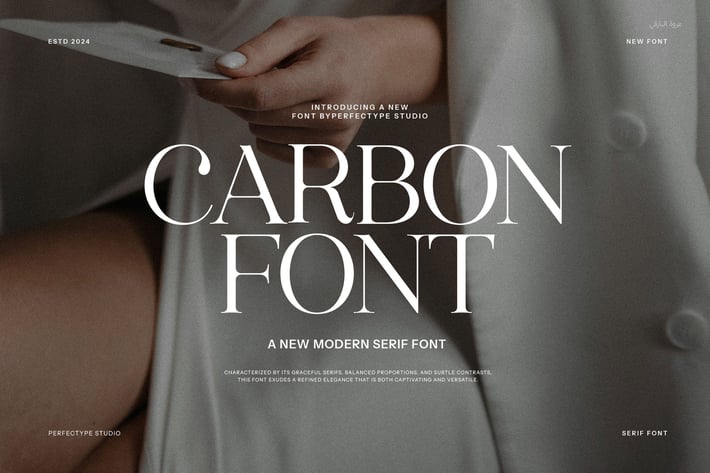
Carbon Elegant Serif Font
Carbon is a refined serif font designed to bring timeless elegance to any project. Its well-crafted letterforms combine classic serif features with a modern touch, making it perfect for a wide range of design needs. Whether you are creating a brand identity, editorial layout, or sophisticated print materials, Carbon offers clarity and style.
First, Carbon features strong serifs with clean, sharp edges that add character without sacrificing readability. This makes the font both decorative and functional. In addition, its smooth curves and balanced proportions provide a harmonious feel, which helps maintain visual interest while keeping text easy to follow.
Moreover, Carbon’s design is versatile. It works well in large headings, thanks to its bold presence, and also performs effectively in body text due to its clear, open shapes. Because of this, Carbon suits magazines, websites, logos, invitations, and packaging alike.
Key benefits of Carbon include:
- Classic serif design with a modern twist
- Clear and legible letterforms
- Strong serifs that enhance style
- Balanced and harmonious proportions
- Works well in both large and small sizes
- Ideal for branding and editorial projects
- Adds sophistication to print and digital design
- Versatile across many creative uses
Additionally, Carbon pairs easily with other fonts, especially simple sans-serif styles, creating contrast and enhancing visual appeal. This makes it a smart choice for designers who want a polished and professional look.
In summary, Carbon Elegant Serif is a stylish, readable font that fits many design projects. It offers both tradition and modernity in one package, ensuring your work stands out with grace and clarity.
First, Carbon features strong serifs with clean, sharp edges that add character without sacrificing readability. This makes the font both decorative and functional. In addition, its smooth curves and balanced proportions provide a harmonious feel, which helps maintain visual interest while keeping text easy to follow.
Moreover, Carbon’s design is versatile. It works well in large headings, thanks to its bold presence, and also performs effectively in body text due to its clear, open shapes. Because of this, Carbon suits magazines, websites, logos, invitations, and packaging alike.
Key benefits of Carbon include:
- Classic serif design with a modern twist
- Clear and legible letterforms
- Strong serifs that enhance style
- Balanced and harmonious proportions
- Works well in both large and small sizes
- Ideal for branding and editorial projects
- Adds sophistication to print and digital design
- Versatile across many creative uses
Additionally, Carbon pairs easily with other fonts, especially simple sans-serif styles, creating contrast and enhancing visual appeal. This makes it a smart choice for designers who want a polished and professional look.
In summary, Carbon Elegant Serif is a stylish, readable font that fits many design projects. It offers both tradition and modernity in one package, ensuring your work stands out with grace and clarity.